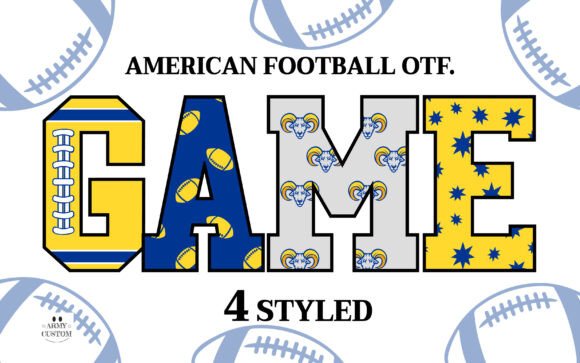
Unleashing the Power of American Football Rams Font
Have you ever been in the midst of a design project, and suddenly, you’re struck by a creative block? You’re not alone! I recall a recent experience where I was working on a branding project for a sports team, and I just couldn’t find the right font to capture their energetic and competitive spirit. That’s when I stumbled upon the American Football Rams Font, and it completely transformed my design. In this article, we’ll dive into the world of this exciting font, exploring its features, uses, and everything in between.
- 💥 **Dynamic and Sporty Design**: The American Football Rams Font is specifically crafted to reflect the essence of American football, making it perfect for sports-related projects.
- 🎨 **Expressive Typography**: With its unique blend of style and sport, this font offers a fresh and exciting way to communicate strength, agility, and competitive spirit.
The American Football Rams Font was conceived with a deep passion for American football and a desire to create a font that embodies its dynamic spirit. The design team drew inspiration from the excitement of the game, the energy of the stadium, and the determination of the players. The result is a font that not only looks great but also tells a story of strength, agility, and unyielding spirit.
In conclusion, the American Football Rams Font is an exciting and dynamic font that captures the essence of American football. With its unique design, seamless compatibility, and expressive typography, it’s perfect for designers, crafters, and creative hobbyists looking to add a touch of sports spirit to their projects.